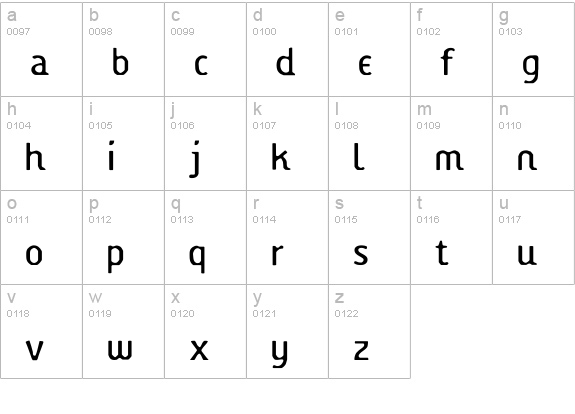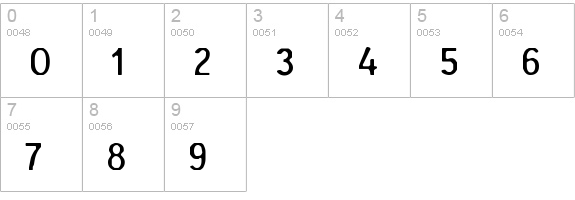
Hasenchartbreaker Font Details
Introducing Hasenchartbreaker font, a stunning display typeface that breaks all boundaries with its unique and captivating design. This font is sure to make a bold statement and grab attention wherever it is used. Hasenchartbreaker font features intricate and playful letterforms, with a perfect balance between elegance and quirkiness. Its dynamic strokes and intricate details create a visually appealing and eye-catching display. Each character is carefully crafted, ensuring a seamless and harmonious flow throughout your designs. Whether you're working on a headline, logo, poster, or any other creative project, Hasenchartbreaker font will add a touch of personality and sophistication. Its versatility allows it to be used in a variety of contexts, from modern and trendy to timeless and classic. But what sets Hasenchartbreaker font apart is that it is not only visually stunning, but also freely available to download at FontsMarket.com. Yes, you read that right! This extraordinary font can be yours for free, allowing you to unleash your creativity without any restrictions. So why wait? Give your designs a unique and captivating touch with Hasenchartbreaker font. Download it now from FontsMarket.com and let your imagination run wild. Break the charts and stand out from the crowd with this incredible typeface.